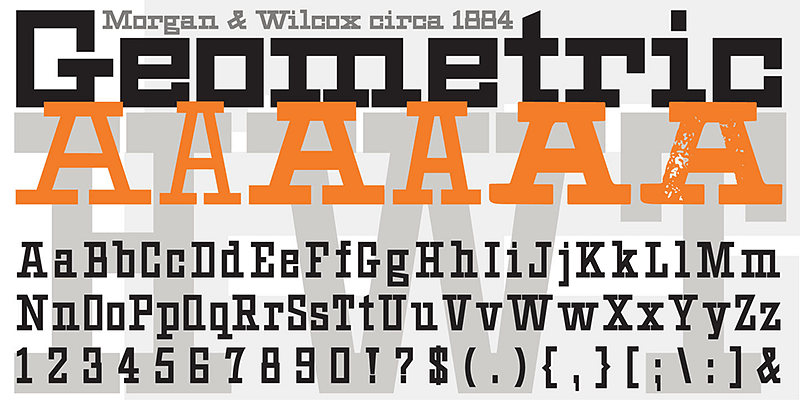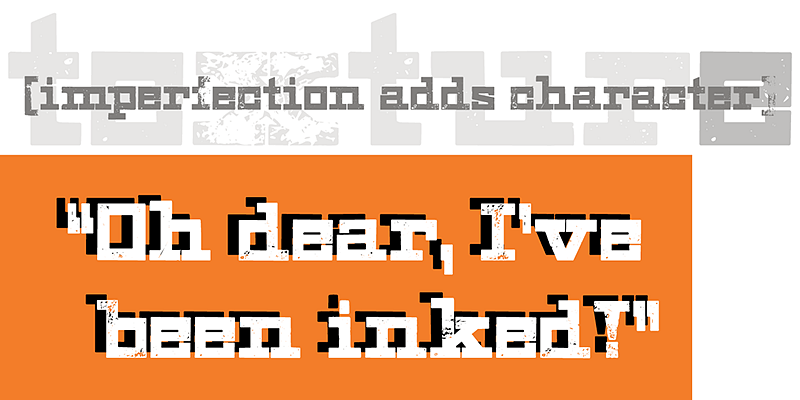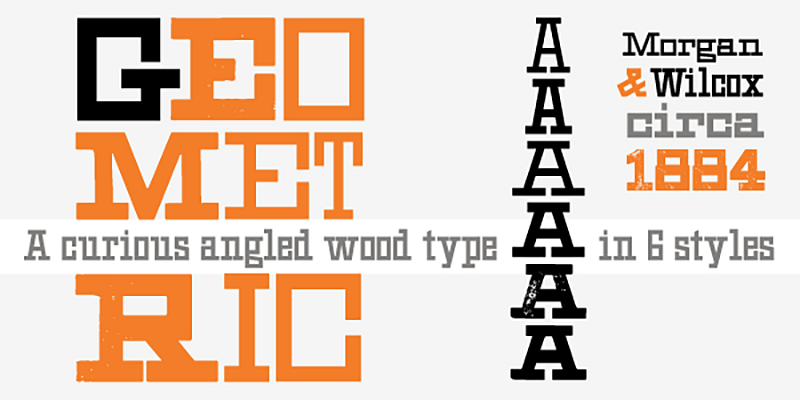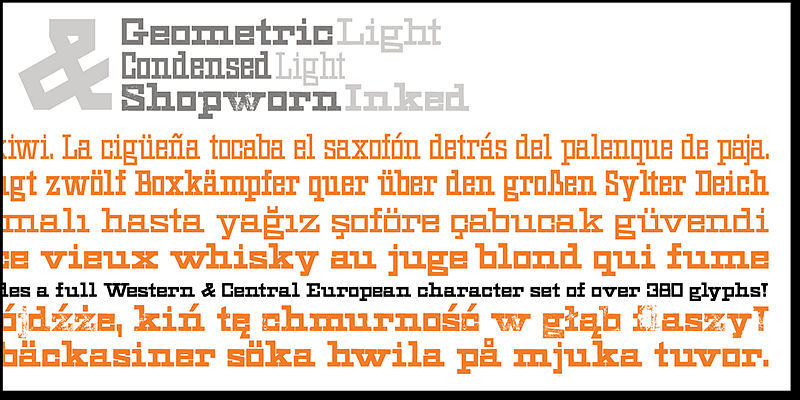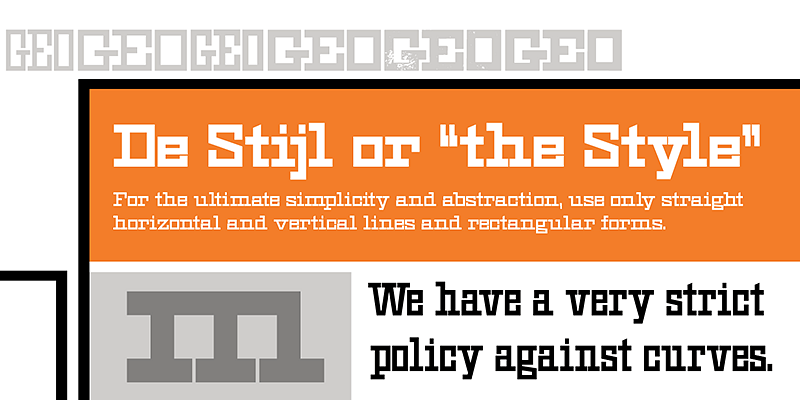
HWT Geometric is a late 19th century wood type design that conjures up early 20th century Dutch DeStijl lettering with a mostly strict adherence to right angles and minimal stroke modulation.